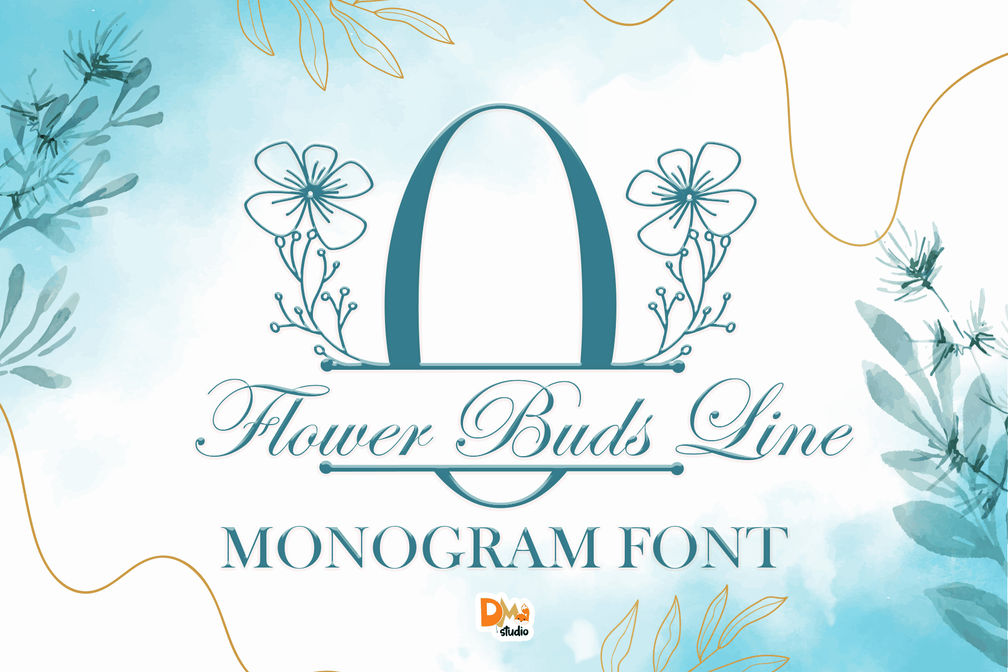
Flower Buds Line Monogram
Flower Buds Line Monogram – Elegant & Delicate Monogram Font
Flower Buds Line Monogram is a beautifully crafted monogram font featuring intricate floral bud designs. This decorative typeface combines elegance and nature-inspired elements, making it ideal for wedding invitations, luxury branding, personalized stationery, boutique packaging, and artistic projects. Its fine details and ornamental style add a refined, graceful touch to any design.
✔ Intricate Floral Bud Design – Each letter is adorned with elegant, hand-drawn floral bud patterns.
✔ Ornamental & Timeless Aesthetic – A blend of floral elegance and intricate details for a sophisticated look.